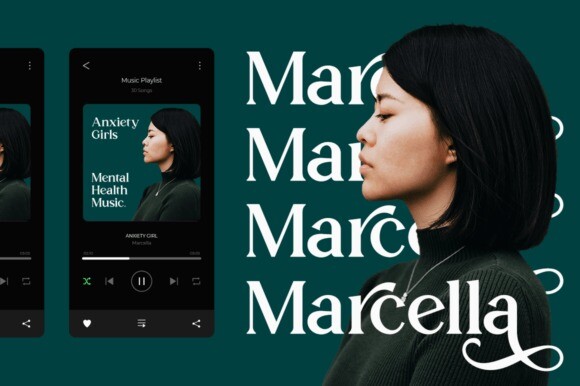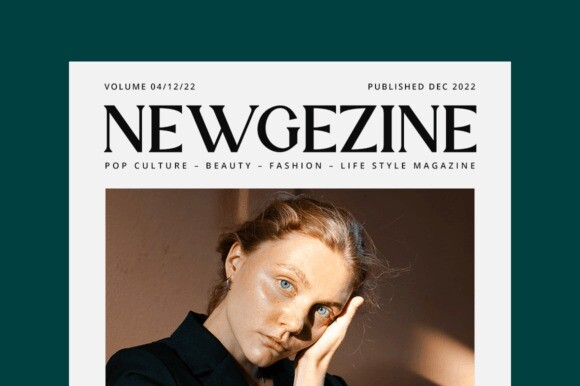
Miracle Display Font
Miracle Display is an elegant and stylish serif font. Suitable for a wide variety of designs due to its neat and simple style, this font has the potential to become your favorite go-to font, no matter the occasion!